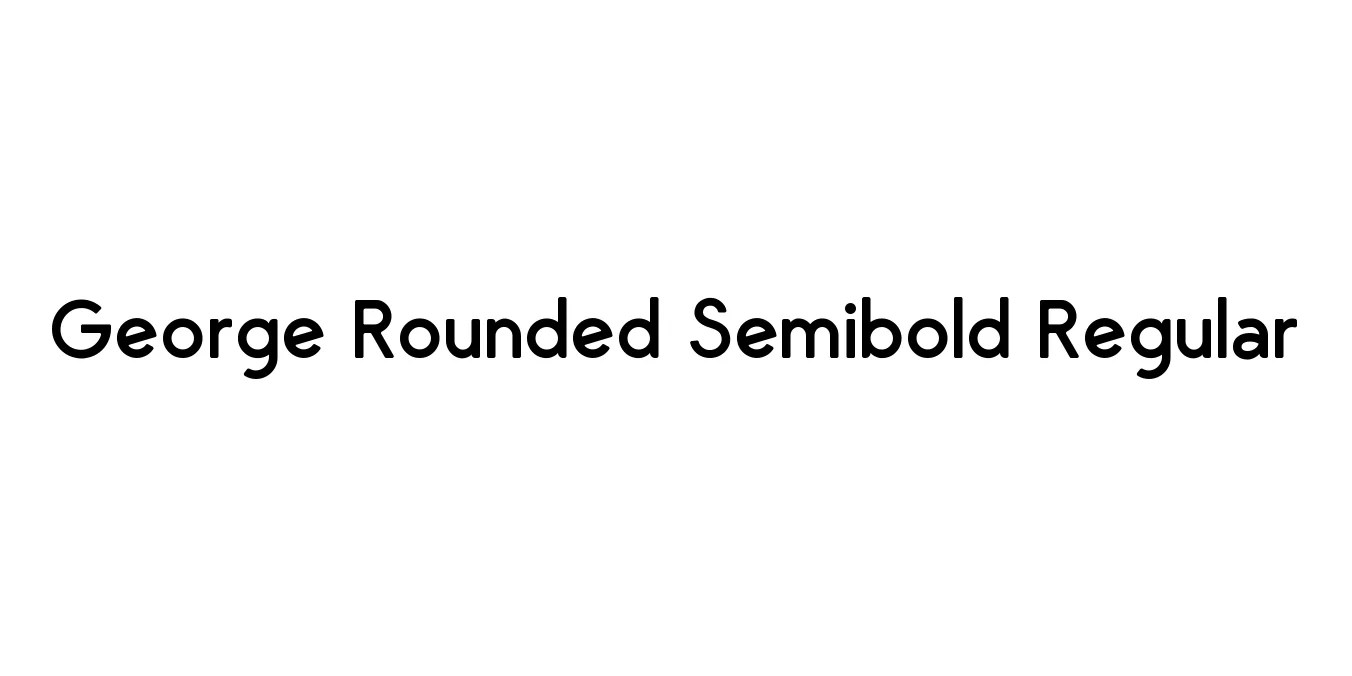
George Rounded Semibold Regular
Designed by Tarek Elsawy
George Rounded Semibold Regular is a meticulously crafted geometric sans-serif typeface designed to convey a sense of modern professionalism blended with an approachable, friendly aesthetic. The font is characterized by its perfectly circular forms and softened terminals, which eliminate the harshness often found in traditional geometric designs. This specific semibold weight provides enough visual weight to stand out in headlines while maintaining the clean lines necessary for high-density digital displays.
Historically, the George Rounded family was developed to meet the needs of contemporary UI/UX designers and brand strategists who require versatility across multiple platforms. Its balanced x-height and generous spacing ensure that it remains highly legible even at smaller point sizes, making it an excellent choice for everything from mobile application interfaces to large-scale environmental signage. The combination of its technical precision and soft visual cues makes it a staple for modern creative projects.
George Rounded Semibold Regular Best Uses
Perfect for creating approachable and memorable brand identities.
High legibility on retina displays with a soft, inviting feel.
Strikes a great balance between bold presence and sophisticated style.
Works well for modern consumer goods that want to look friendly yet premium.